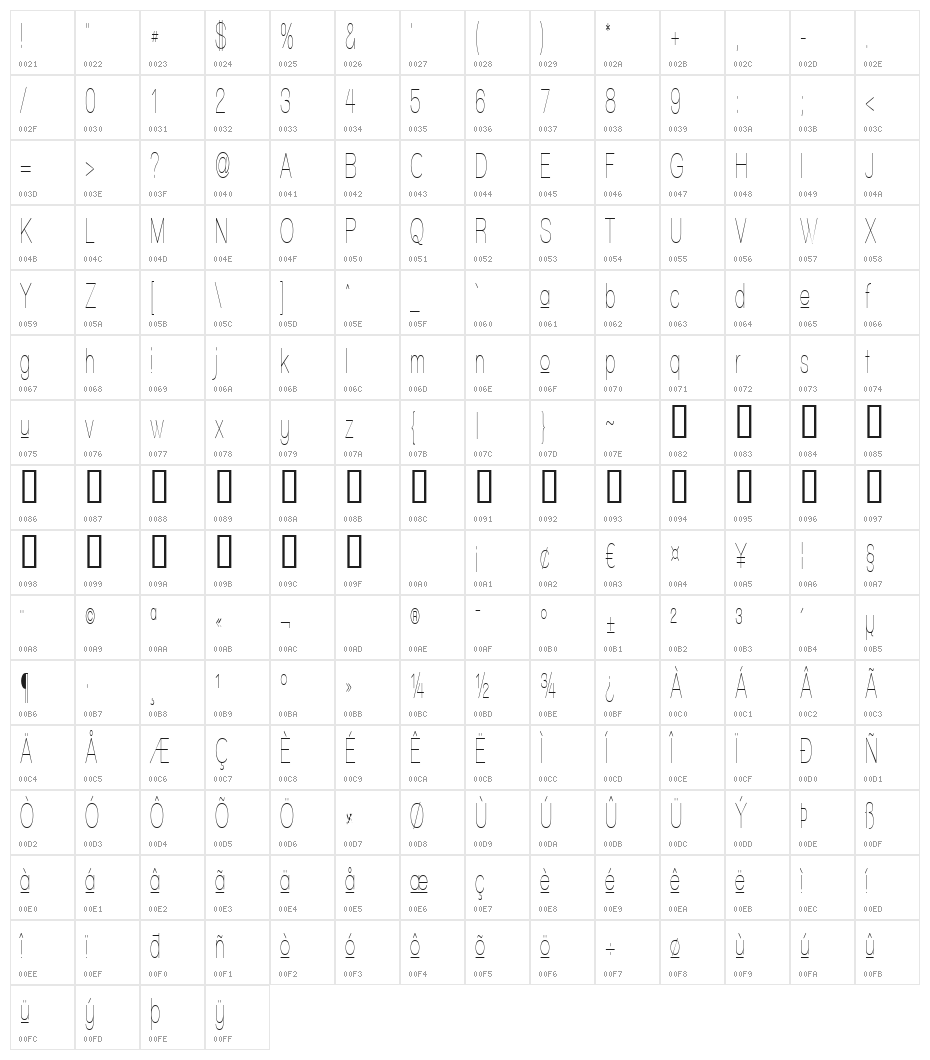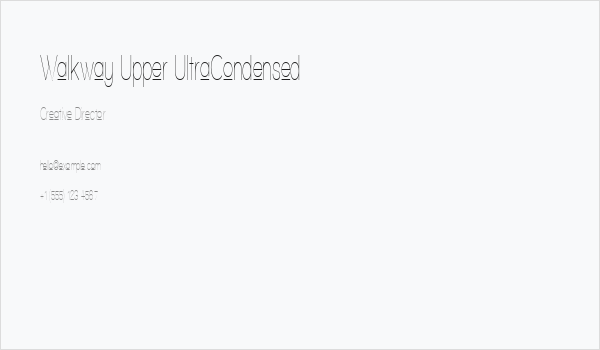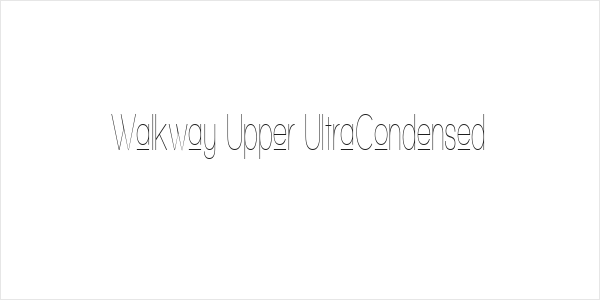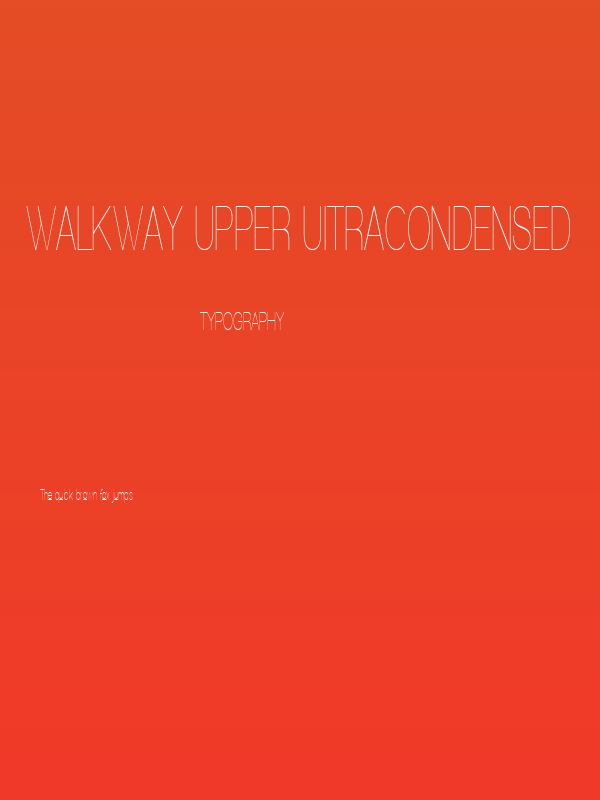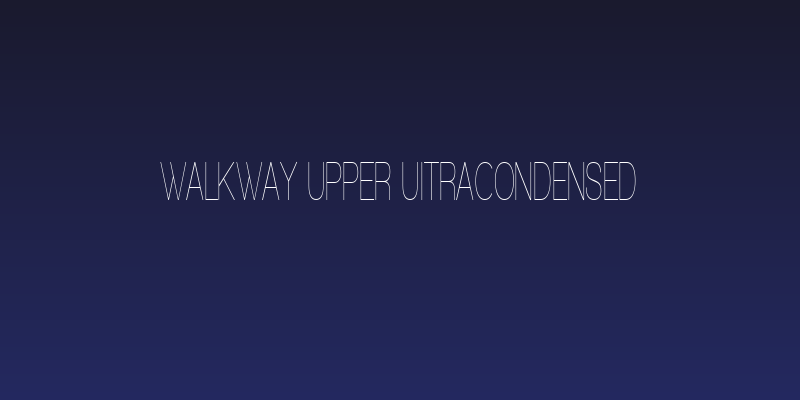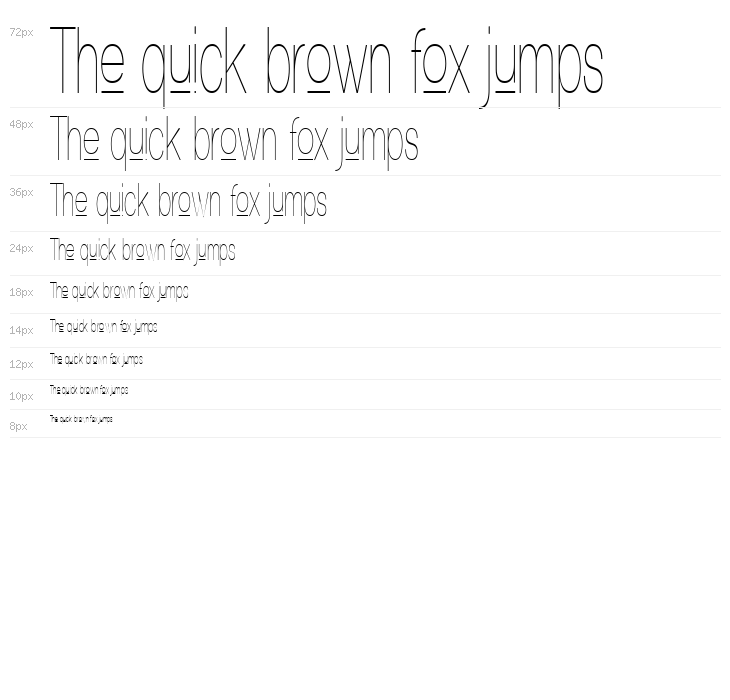
Walkway Upper UItraCondensed Font
Walkway Upper UItraCondensed Description
This font features an ultra-condensed, modern sans-serif design with a clean and minimalistic aesthetic. The characters are tall and narrow, emphasizing verticality and space efficiency. The strokes are uniform and thin, contributing to a sleek and elegant appearance. The uppercase and lowercase letters maintain a consistent style, with rounded edges that soften the overall look. The numerals and special characters are designed to match the font's streamlined and contemporary feel, making it suitable for a variety of digital and print applications.
| Use Case | Headlines, Logos, Digital Interfaces |
| Proposed Projects | Ideal for use in digital interfaces, minimalist branding, modern posters, and editorial layouts. |